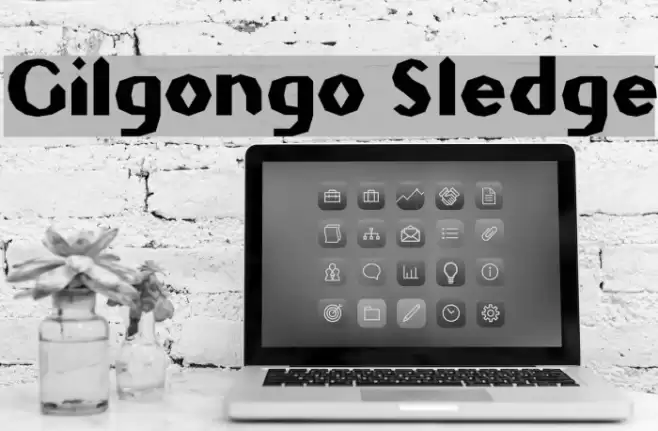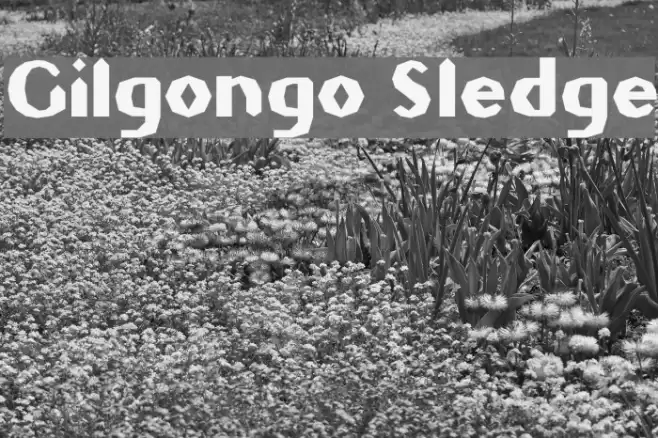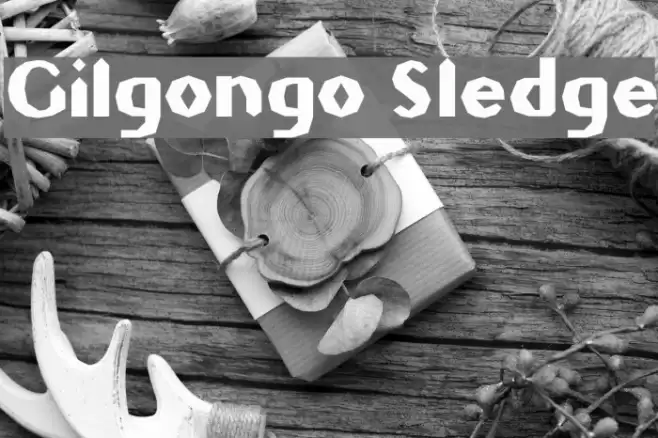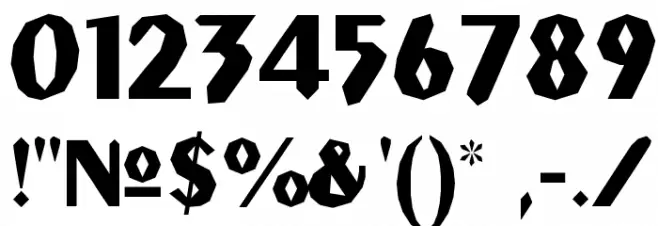
Gilgongo Sledge Font
Gilgongo Sledge Description
This font features a bold and angular design with a distinct geometric style. The characters are sharply cut with a blocky appearance, giving them a strong and impactful presence. The uppercase and lowercase letters maintain a consistent weight, while the numerals and special characters follow the same robust design. The font's unique style is characterized by its sharp edges and solid structure, making it stand out in any design context. Its boldness and geometric nature lend it a modern yet slightly retro feel, suitable for a variety of creative projects.
A bold, angular font with a geometric and impactful design from Quirky fonts.
- Proposed Projects: Ideal for posters, logos, branding, and headlines where a strong visual impact is desired.